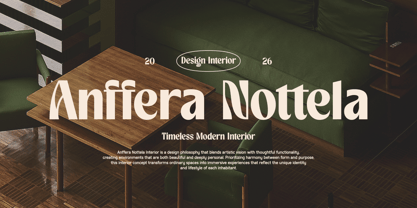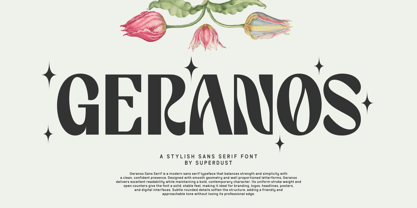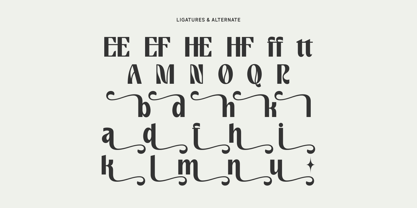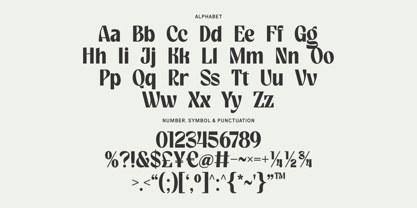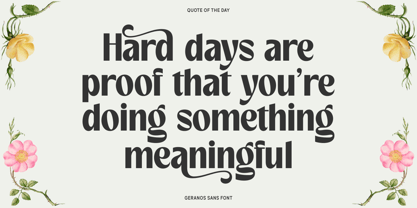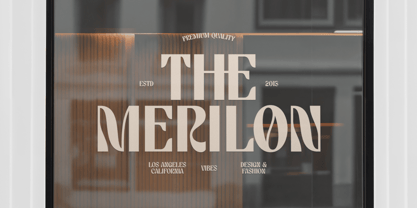
Geranos
by Super Dust
The Geranos Font Family was designed by Tri Iriyanto Wibowo and published by Super Dust. Geranos contains 1 styles. More about this family
Geranos is a stylish sans serif font that combines modern sophistication with a slightly bold appearance, creating a perfect balance between elegance and confidence. Inspired by the name Geranos, which conveys a sense of grace, strength, and timeless movement, this typeface is designed to bring character and personality to every design. Its clean structure and refined details make it feel contemporary while maintaining a distinctive identity that stands out in both digital and print applications.
Crafted with carefully balanced proportions, smooth curves, and subtle geometric influences, Geranos offers a polished look that feels fresh, versatile, and highly professional. The slightly bold weight provides strong visual impact without overwhelming the design, making it ideal for projects that require clarity, style, and lasting appeal. Every letter has been thoughtfully designed to deliver a harmonious rhythm, ensuring exceptional readability while adding a modern and expressive touch.
Geranos is a font that effortlessly adapts to a wide variety of creative purposes. Whether you're creating premium brand identities, elegant logos, editorial layouts, magazine covers, product packaging, fashion campaigns, advertising materials, social media content, websites, or presentation designs, this typeface provides the flexibility to achieve both bold statements and sophisticated compositions. Its stylish appearance also makes it an excellent choice for photography branding, cosmetic packaging, luxury products, lifestyle businesses, cafés, creative agencies, and contemporary marketing materials.
Beyond its visual appeal, Geranos is built to help designers communicate with confidence. It delivers a clean, modern aesthetic while preserving warmth and personality, allowing every word to feel intentional and memorable. The combination of minimalism and subtle boldness creates a timeless style that remains relevant across changing design trends.
Whether paired with elegant serif fonts or used as a powerful standalone display typeface, Geranos brings consistency, refinement, and creative energy to every project. It is more than just a font—it is a design tool that transforms ideas into compelling visual experiences. With its stylish character, balanced construction, and versatile personality, Geranos is the perfect choice for designers, brands, and creators looking to make a lasting impression with modern typography.
Designers: Tri Iriyanto Wibowo
Foundry: Super Dust